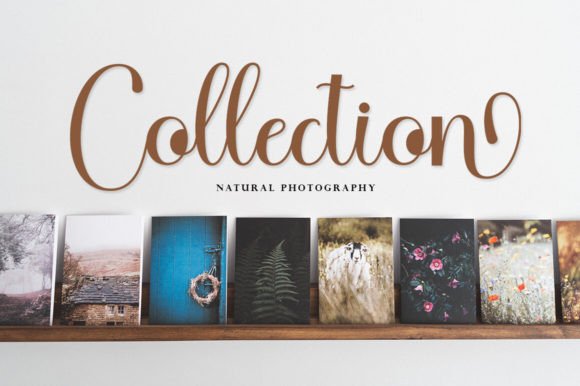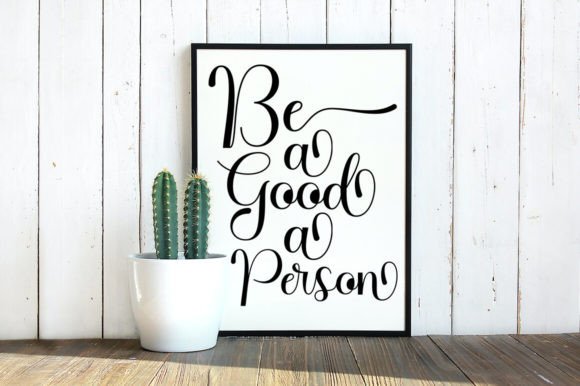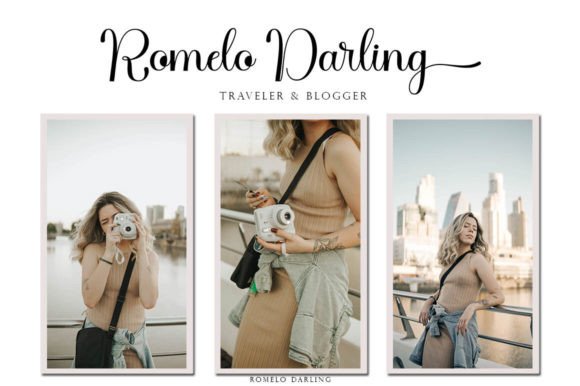
The Chigoda Font: A Beautiful Handwritten Script for Your Creative Projects
Have you ever been in the middle of a design project, and suddenly, you’re stuck on finding the perfect font? I recall a recent experience where I was working on a branding project for a luxury home goods client, and I just couldn’t find a font that screamed elegance and sophistication. That’s when I stumbled upon the Chigoda Font, a beautiful handwritten script that instantly elevated my design.
A Personal Review of Chigoda Font
As a designer, I’m always on the lookout for fonts that can bring a touch of elegance to my projects. Here’s my honest review of the Chigoda Font:
- ✨ Beautiful handwritten style: The Chigoda Script has a unique, cursive feel that’s perfect for adding a personal touch to your designs.
- ✅ Equipped with 351 glyphs: With a wide range of characters, you can create complex and beautiful text arrangements.
- ✅ Perfect for various design projects: From branding and packaging to business cards and invitation cards, Chigoda Script is a versatile font that can elevate any design.
While I adore the Chigoda Font, there are a few things to keep in mind:
- ⚠️ Legibility at small sizes: Like many script fonts, Chigoda can become a bit tricky to read at very small sizes. Make sure to test it in your design before finalizing.
- 🤔 Pairing with other fonts: As with any script font, it’s essential to pair Chigoda with a complementary font to avoid visual overload.
The Story Behind Chigoda Font
While I couldn’t find much information on the designer behind Chigoda, I like to imagine that it was created by a passionate typographer who wanted to craft a beautiful, elegant script font that would bring joy to designers and crafters alike.
Q: What is the Chigoda Font best used for?
A: The Chigoda Font is perfect for designs that require a touch of elegance, such as branding projects, homeware design, product packaging, business cards, and invitation cards.
Q: Is the Chigoda Font suitable for body text?
A: While Chigoda is a beautiful font, it’s best used for headlines or short paragraphs. For longer body text, you may want to choose a more legible font.